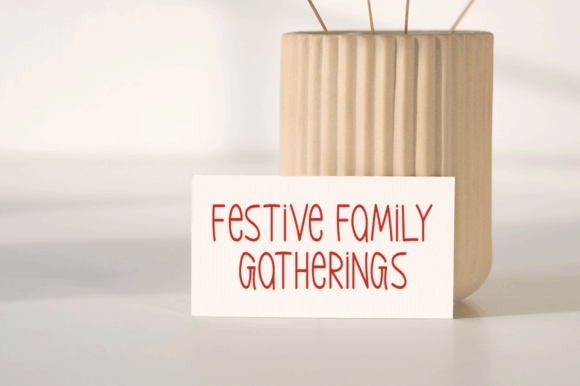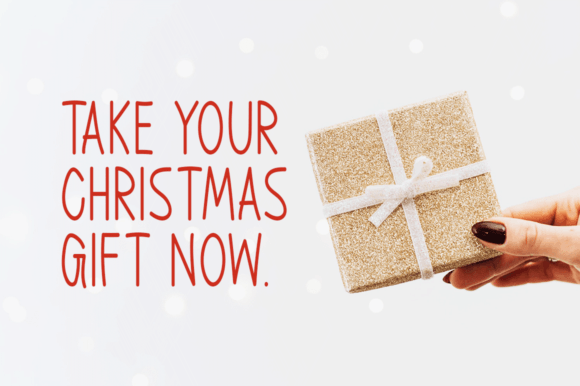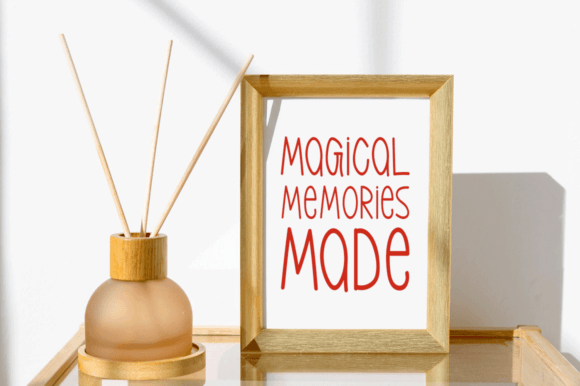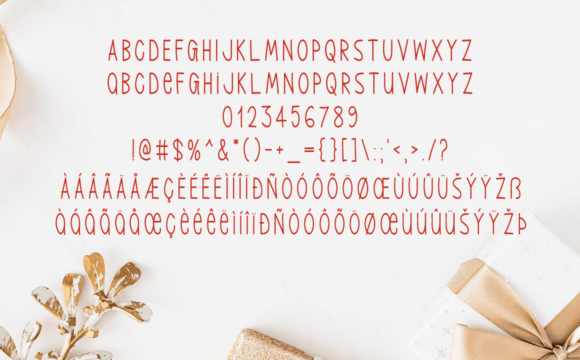
The Magic of Gleaming Christmas Font: A Designer’s Delight
It’s that time of the year again – the holiday season is just around the corner, and as designers, crafters, and creative hobbyists, we’re gearing up to create some amazing Christmas-themed designs. I still remember the year I struggled to find the perfect font for a client’s Christmas project. The design brief was simple: create a festive and elegant look that captured the warmth of the season. After hours of scouring through font libraries, I stumbled upon Gleaming Christmas – a charming handwritten font that instantly brought my design to life. In this article, I’ll share my experience with Gleaming Christmas, its features, and how to make the most of it in your designs.
A Personal Review: What I Love About Gleaming Christmas
Gleaming Christmas has become a staple in my holiday design toolkit, and here’s why:
- ✨ Playful yet elegant: The font’s playful strokes and graceful curves strike the perfect balance between fun and sophistication.
- ✅ Highly versatile: Gleaming Christmas can be used for a wide range of design projects, from holiday cards and invitations to social media graphics and website headers.
- 🎉 Festive spirit: The font embodies the warm and festive spirit of Christmas, making it perfect for spreading joy and cheer during the holiday season.
While Gleaming Christmas is an excellent font, there are a few things to keep in mind:
- 🤔 Limited character set: As a handwritten font, Gleaming Christmas may not have an extensive character set, which can limit its use in certain design projects.
- ⚠️ Legibility at small sizes: Like many script fonts, Gleaming Christmas may become less legible at small font sizes, so it’s best to use it at larger sizes or for display purposes.
A Practical Guide: Using Gleaming Christmas in Your Designs
The Story Behind Gleaming Christmas
Gleaming Christmas was designed by a talented type designer who wanted to capture the warmth and magic of the holiday season. Inspired by traditional holiday decorations and vintage Christmas cards, the designer created a font that’s both elegant and playful. The result is a font that’s perfect for spreading joy and cheer during the most wonderful time of the year.
| What type of designs is Gleaming Christmas best suited for? | Gleaming Christmas is perfect for holiday-themed designs, such as Christmas cards, invitations, social media graphics, and website headers. |